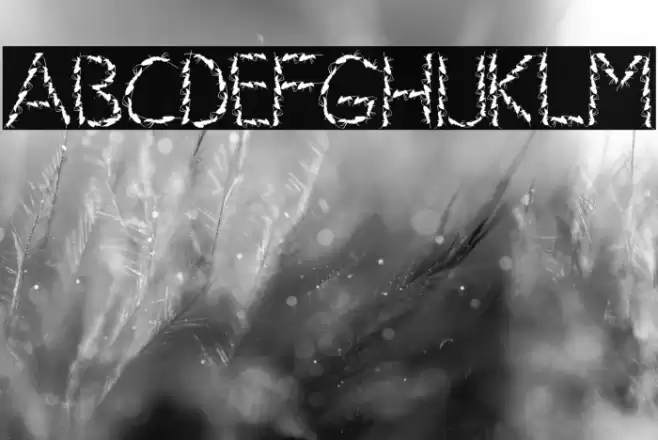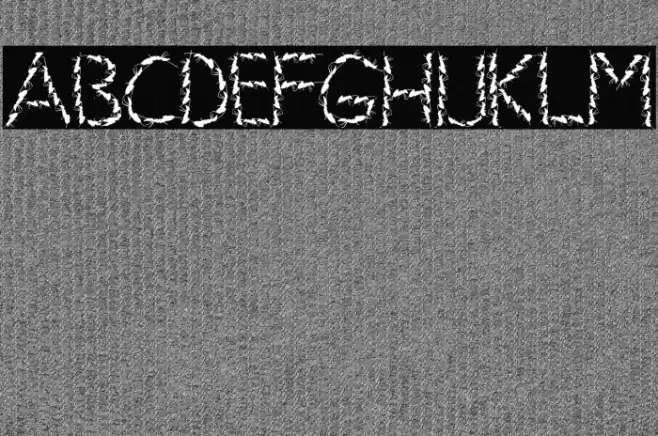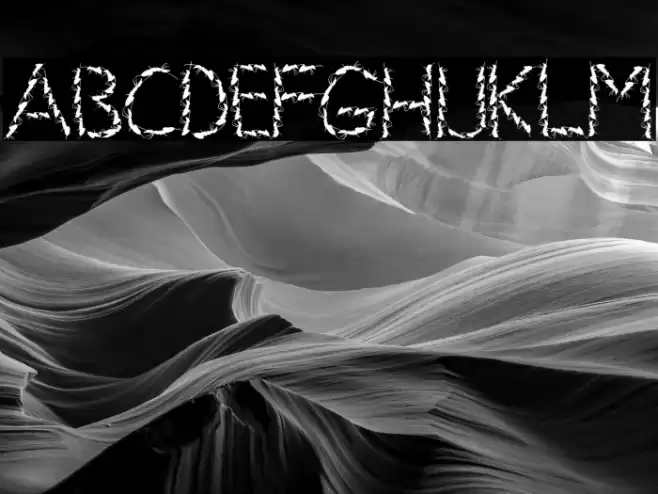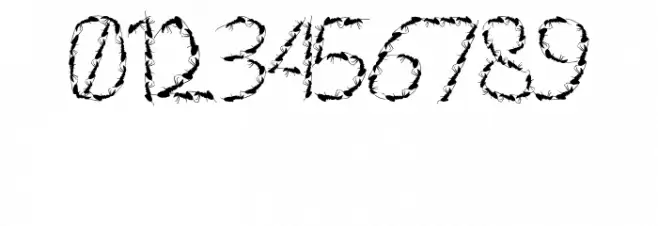
Ant Font
Ant Description
This font features a unique and edgy design, with each character appearing as if it is constructed from sharp, thorn-like elements. The jagged edges and irregular shapes give it a dynamic and somewhat aggressive appearance, making it stand out in any design. The uppercase letters are bold and prominent, while the numbers maintain the same thorny aesthetic, ensuring consistency across all characters. This font is perfect for projects that require a bold statement or a touch of rebellious flair.
A thorny, edgy font with sharp, jagged characters from Decorative fonts.
- Proposed Projects: Ideal for album covers, posters, or any design needing a bold, rebellious touch.
- Contrast: High